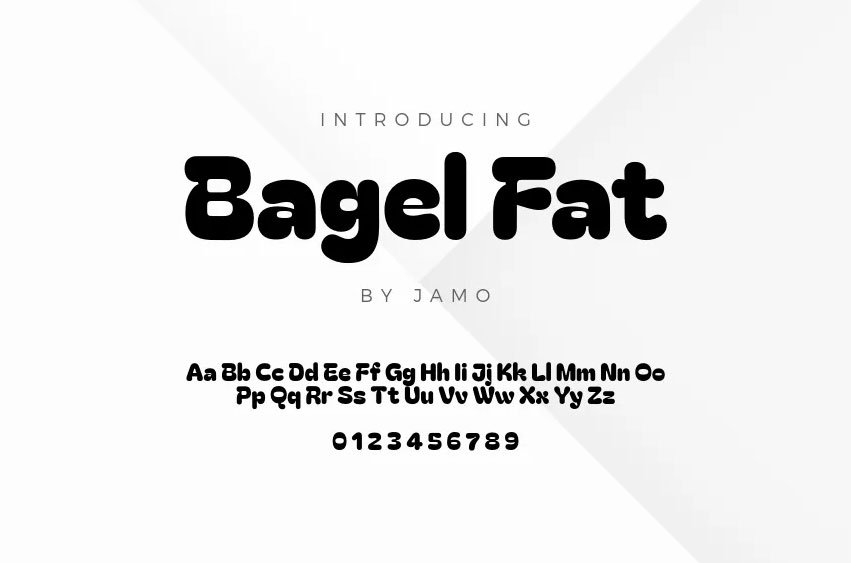
Bagel Fat Font Looking to add a touch of cuteness and sweetness to your design? Look no further than Bagel Fat Font! With its rounded corners and heavy, fat weight, this Sans Serif font is inspired by the delicious world of bread, pastries, and sweets.
But don’t let its cute appearance fool you – the large contrast between the horizontal and vertical strokes also gives it a unique edge. Created by JAMO, Bagel Fat Font is the perfect choice for any design that needs a playful and charming touch.